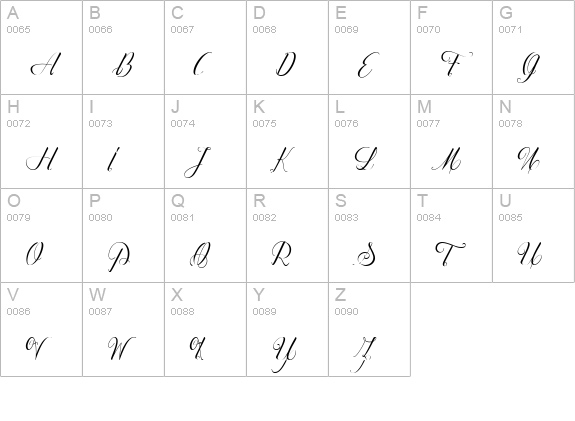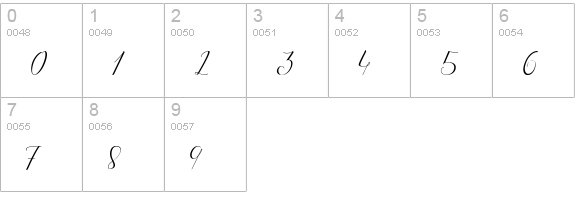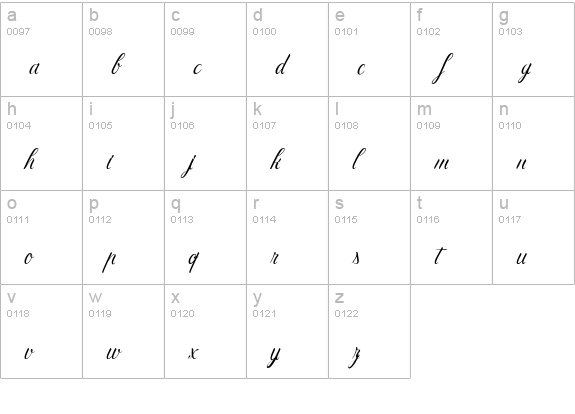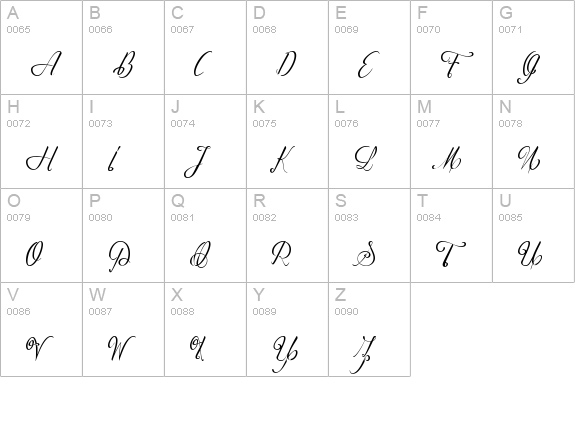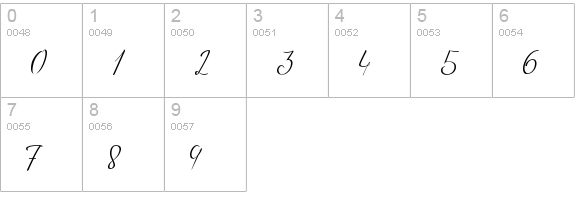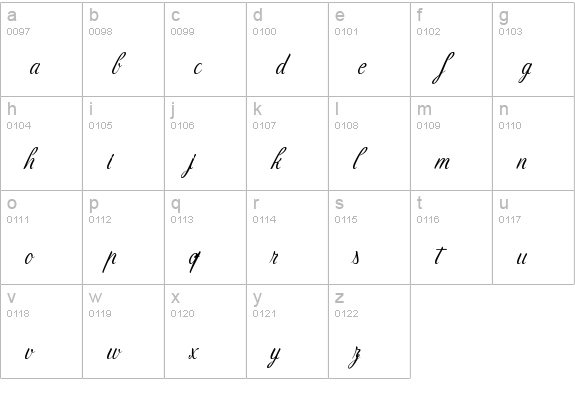
Question and Love Font Details
Question and Love font is a stunning and versatile typeface that embodies the essence of curiosity and affection. With its unique and intricate design, this font captures the imagination and adds a touch of elegance to any project. Whether you're designing a thought-provoking poster, creating a heartfelt greeting card, or crafting a captivating logo, Question and Love font is sure to make a lasting impression. What makes this font even more extraordinary is that it is freely available to download at FontsMarket.com. This means that you can enjoy the beauty and creativity of Question and Love font without any cost. With just a few clicks, you can add this incredible font to your collection and unlock endless possibilities for your designs. The versatility of Question and Love font allows it to seamlessly adapt to various themes and styles. Its clean lines and delicate curves make it a perfect choice for romantic projects, while its bold presence and captivating shapes lend themselves well to more adventurous and innovative designs. With a wide range of weights and styles to choose from, you have the freedom to customize and experiment with different looks to suit your creative vision. Not only does Question and Love font offer aesthetic appeal, but it also ensures legibility and readability. Its well-crafted letterforms ensure that your message is conveyed clearly and effectively, making it an ideal choice for both print and digital projects. Whether it's a headline, body text, or even decorative elements, Question and Love font will elevate your design and captivate your audience. So why wait? Experience the beauty and versatility of Question and Love font today by downloading it for free at FontsMarket.com. Let your creativity soar and create designs that evoke curiosity and love with this exceptional typeface.